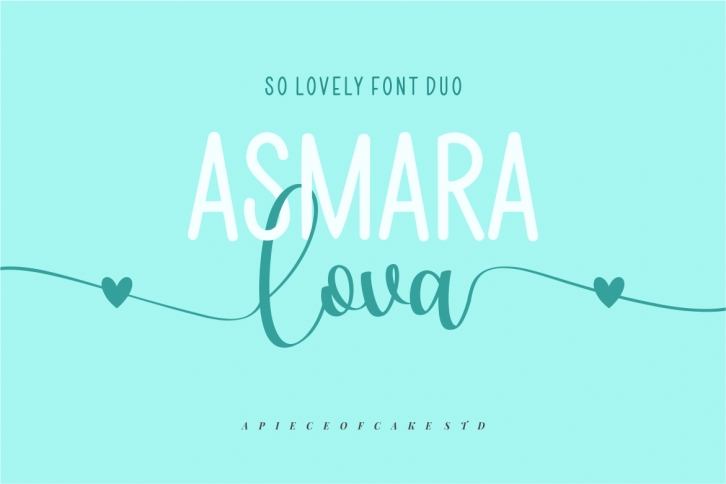
Asmaralova is a stylish and delicate handwritten duo font suitable for a wide spectrum of applications. From greeting cards to headlines, you can add this spectacular font to any of your creative projects, and it will guarantee them a romantic handwritten touch.